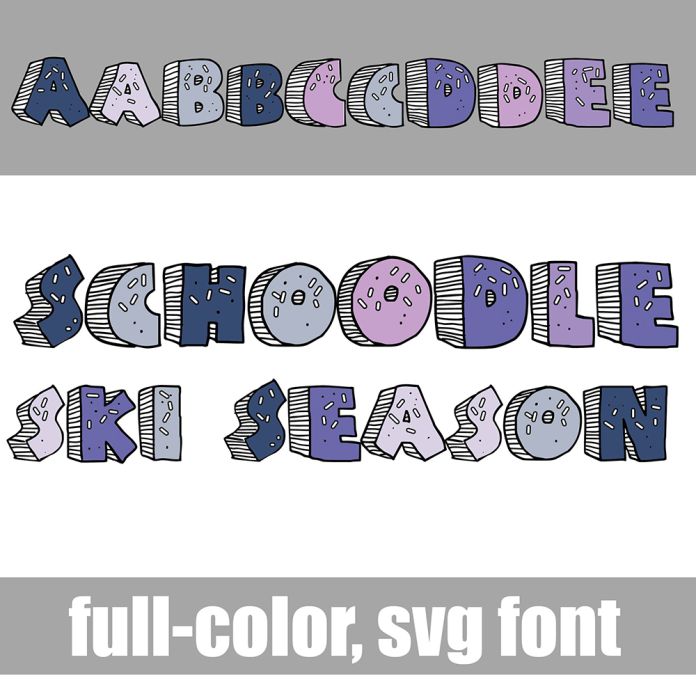
This full-color font features a 3d, whimsical, doodled font done in a cold/winter color palette. There is an alt case with an additional color of each letter. This font works best for titles, displays, posters and more. Please note color fonts will show as black in non compatible programs. This font type is compatible with Silhouette Studio.